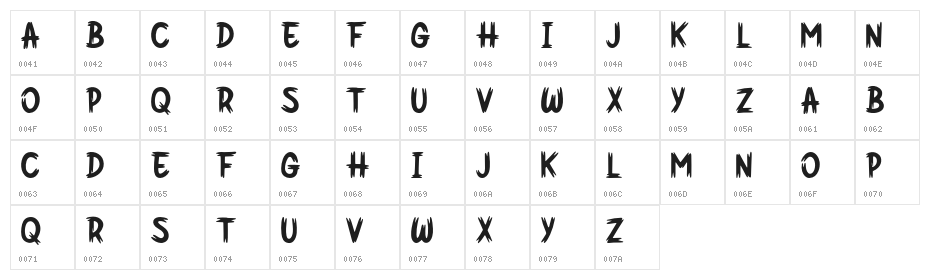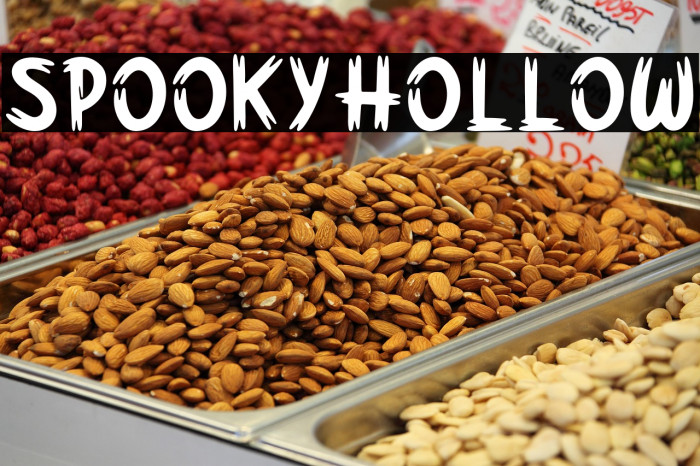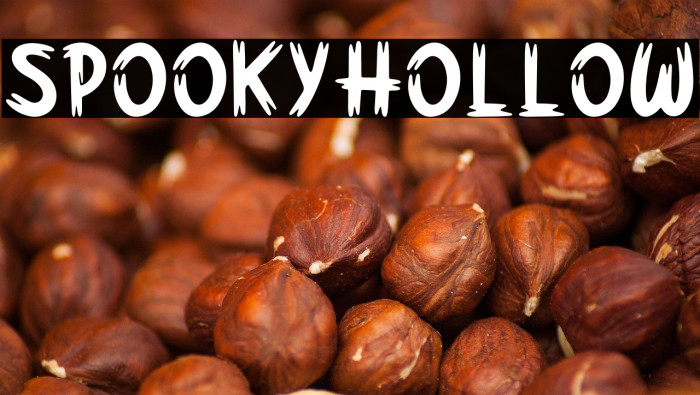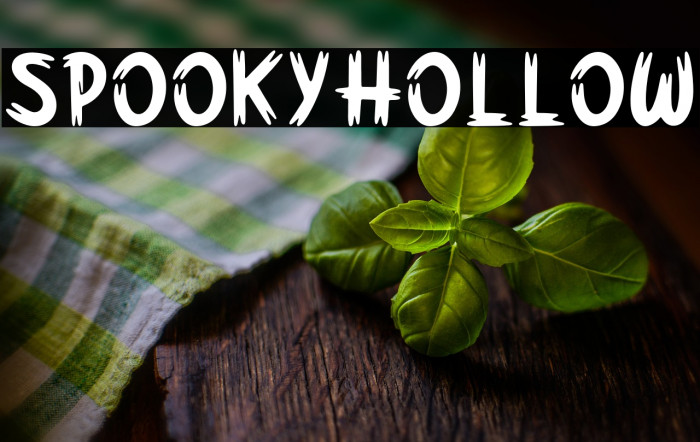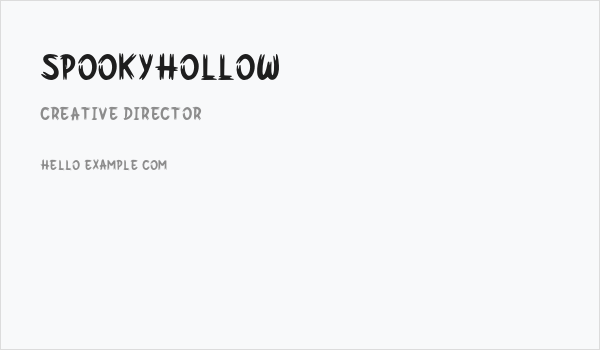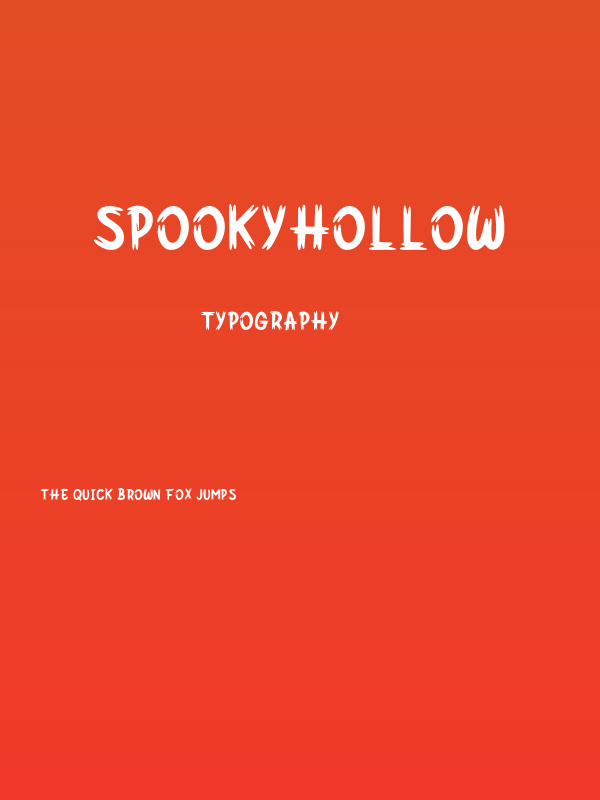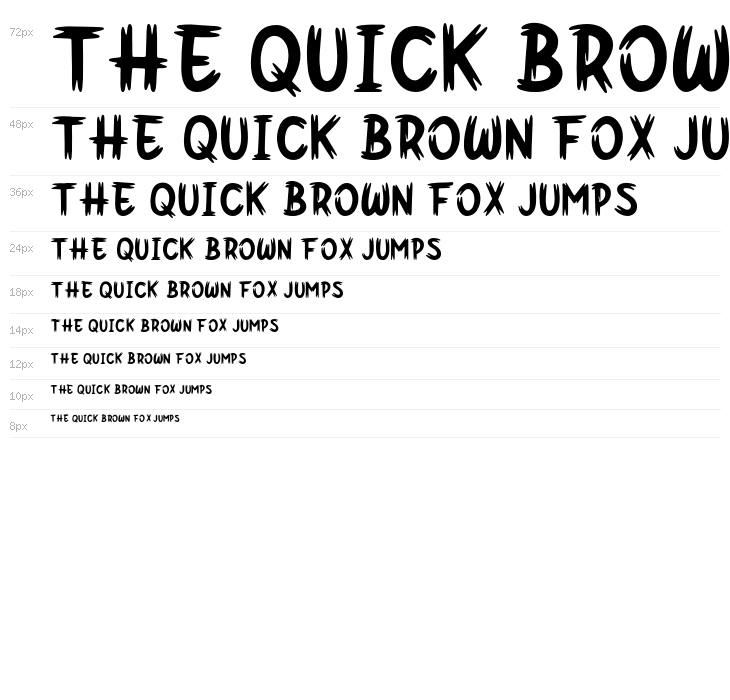
SpookyHollow Font
SpookyHollow Description
This font features a bold and playful design with a spooky, Halloween-inspired theme. The characters have jagged edges and irregular strokes, giving them a haunted, eerie appearance. The uppercase letters are particularly striking, with exaggerated serifs and a slightly uneven baseline that adds to the unsettling vibe. The font maintains a consistent weight throughout, ensuring readability while still conveying a sense of mystery and intrigue. It's perfect for creating eye-catching headlines or themed graphics that require a touch of the macabre.
| Proposed Projects | Ideal for Halloween posters, themed party invitations, horror movie titles, and spooky event flyers. |